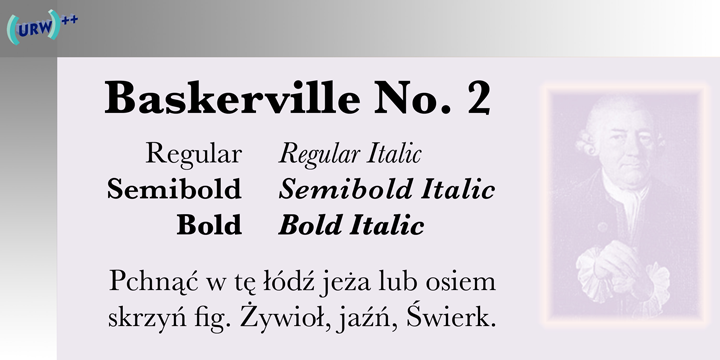
Baskerville No. 2 Font is perfect for book publishing, academic journals, literary magazines, formal invitations, legal documents, luxury branding, fine art catalogs, museum publications, corporate annual reports, and prestigious editorial layouts. This distinguished transitional serif brings classical refinement and scholarly authority to sophisticated design applications.
What makes Baskerville No. 2 Font so exciting is its exceptional balance of historical significance and contemporary functionality that represents the pinnacle of 18th-century typography excellence. The font features crisp, high-contrast letterforms with sharp serifs and precise geometric proportions that create unparalleled elegance and readability. Its distinctive characteristics include increased contrast between thick and thin strokes, more vertical stress than earlier typefaces, and sharper, more defined serifs that give text a brilliant, crystalline quality. The refined optical spacing and masterful letterform relationships ensure that extended reading remains comfortable while maintaining the authoritative presence that has made Baskerville a favorite among scholars and publishers for centuries.
The Baskerville No. 2 Font family includes comprehensive weights and styles: Regular, Italic, Semibold, Bold, and Expert variations. The extensive character set encompasses complete Latin alphabet support, old-style and lining figures, small caps, ligatures, punctuation marks, mathematical symbols, and broad international language coverage. Professional features include contextual alternates, swash characters, ornamental elements, and expert spacing that enhance both aesthetic appeal and typographic sophistication.
Whether you're creating academic publications, luxury brand communications, or premium editorial content, Baskerville No. 2 Font Free Download delivers the timeless elegance and scholarly credibility that elevates distinguished publications. Its exceptional versatility makes it ideal for both display and text applications, while its classical proportions ensure enduring visual appeal that transcends design trends. The font's rich typographic heritage and technical excellence make it indispensable for projects requiring the highest standards of literary and academic presentation.